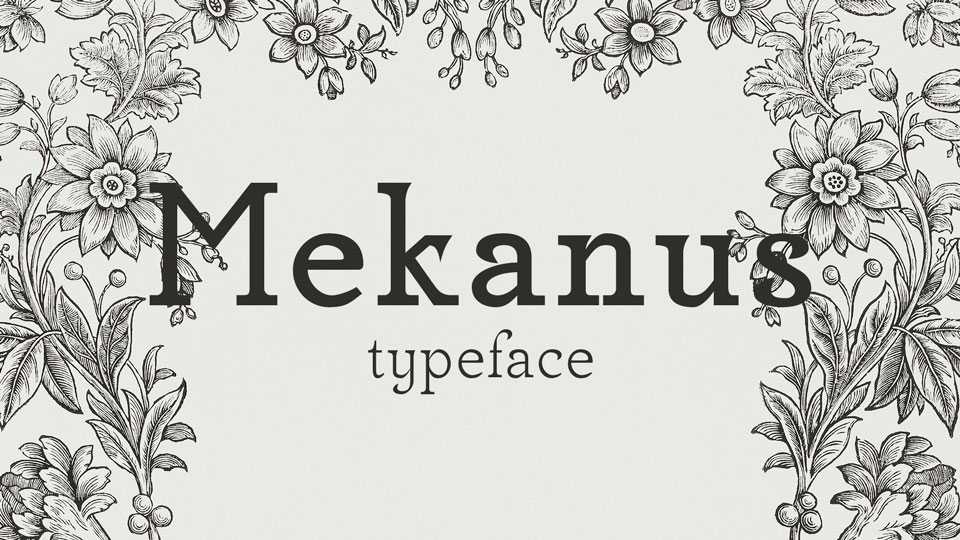
Download Mekanus typeface, a serif font family that was born from a style exercise designed to combine a typewriting style and handwriting. Mekanus offers an elegant design away from traditional fonts.
Designer: Arkandis Digital Foundry